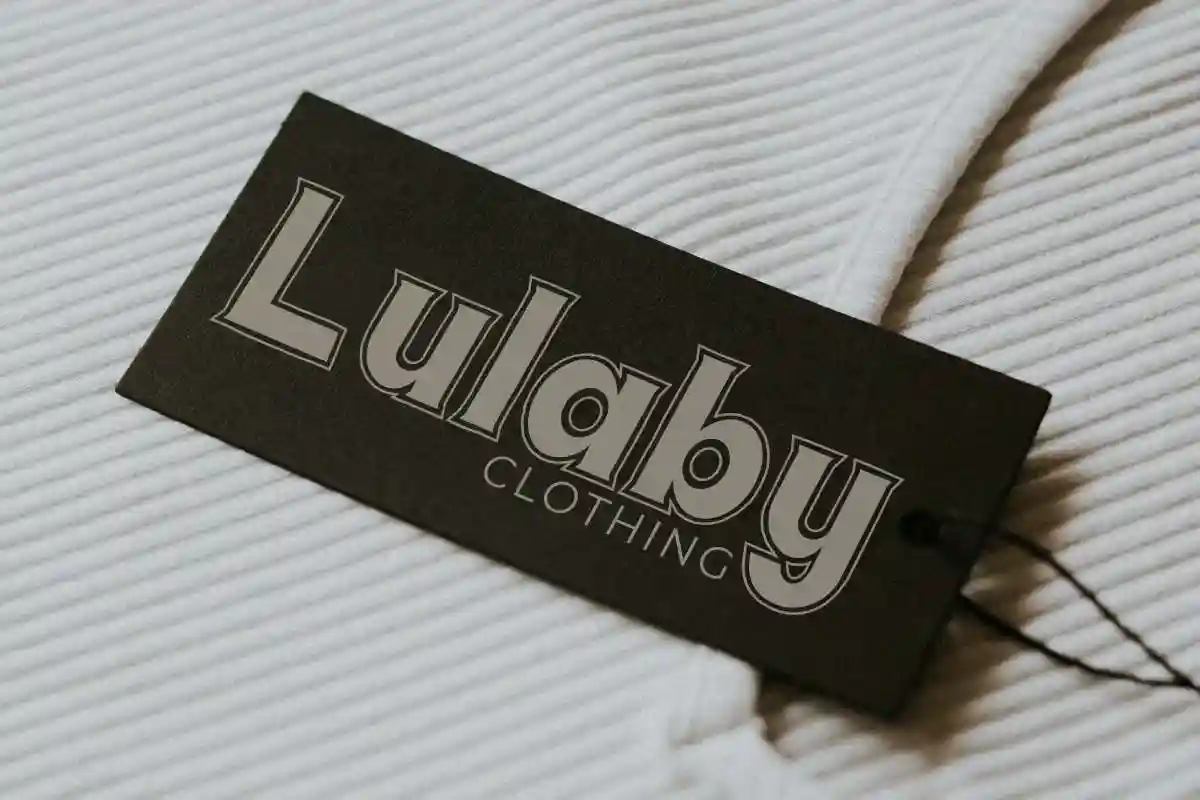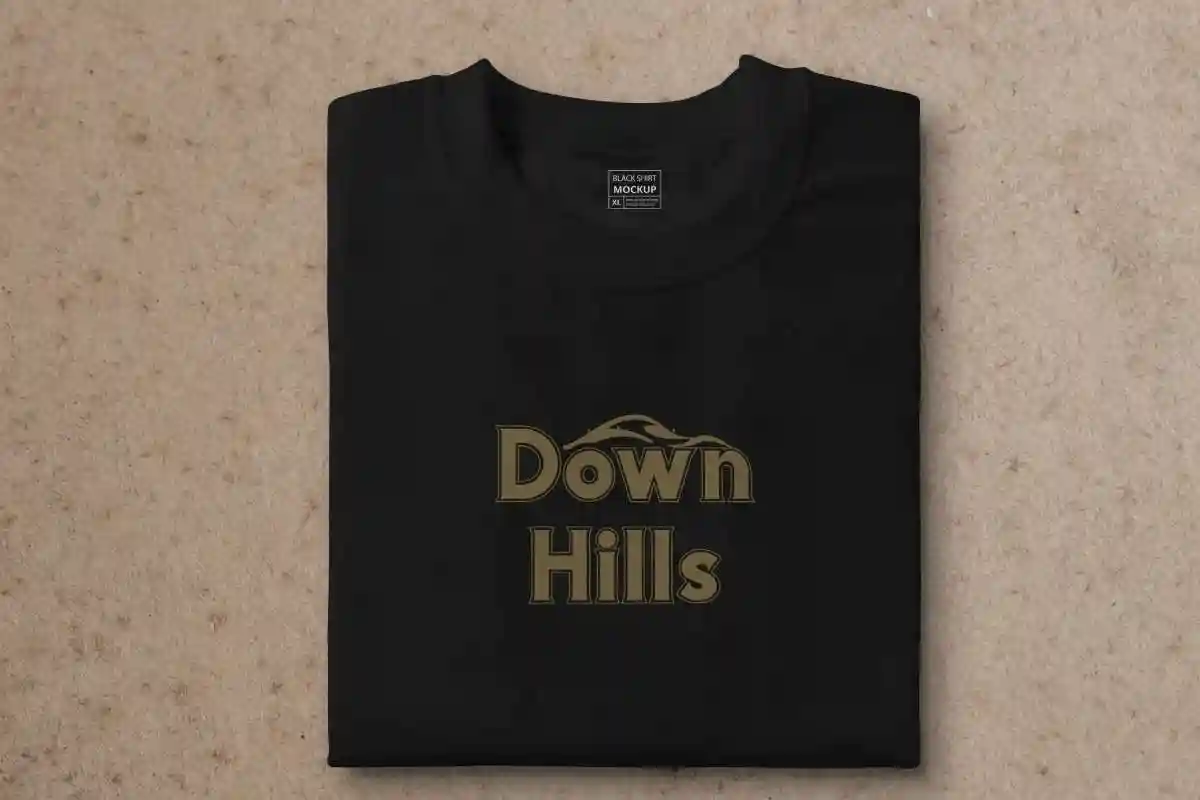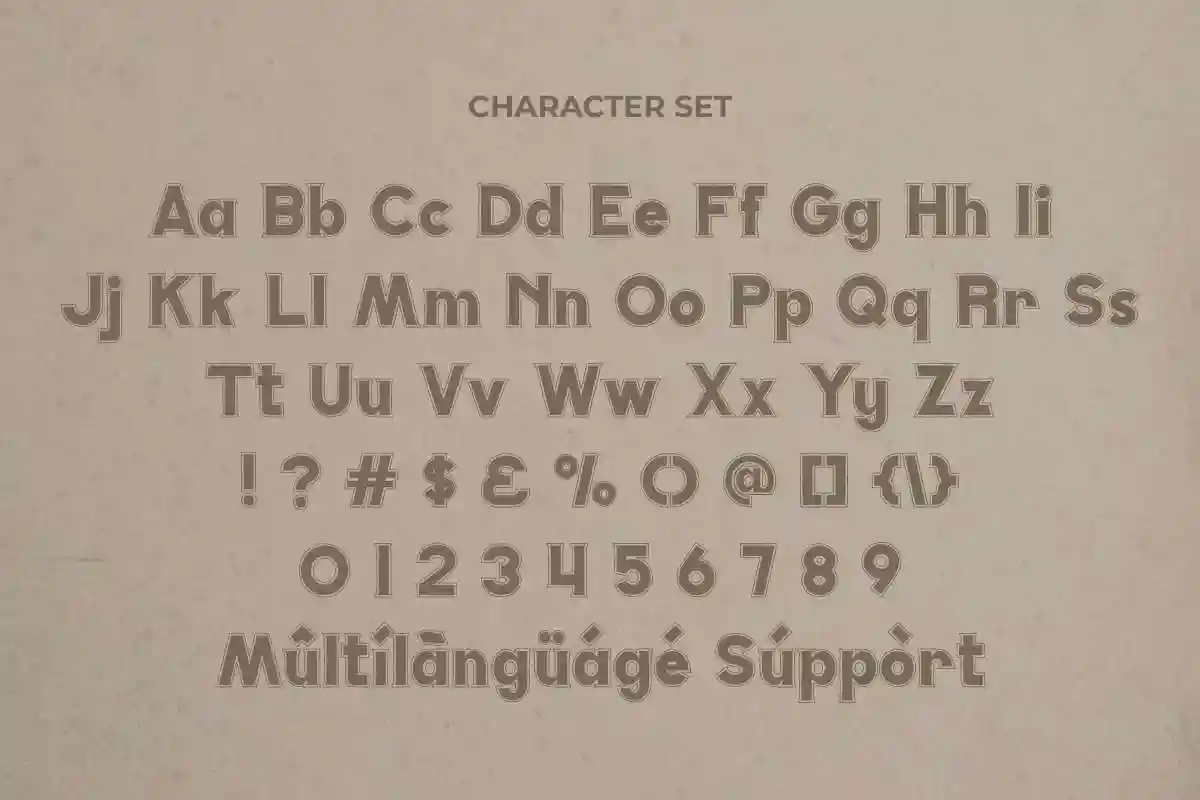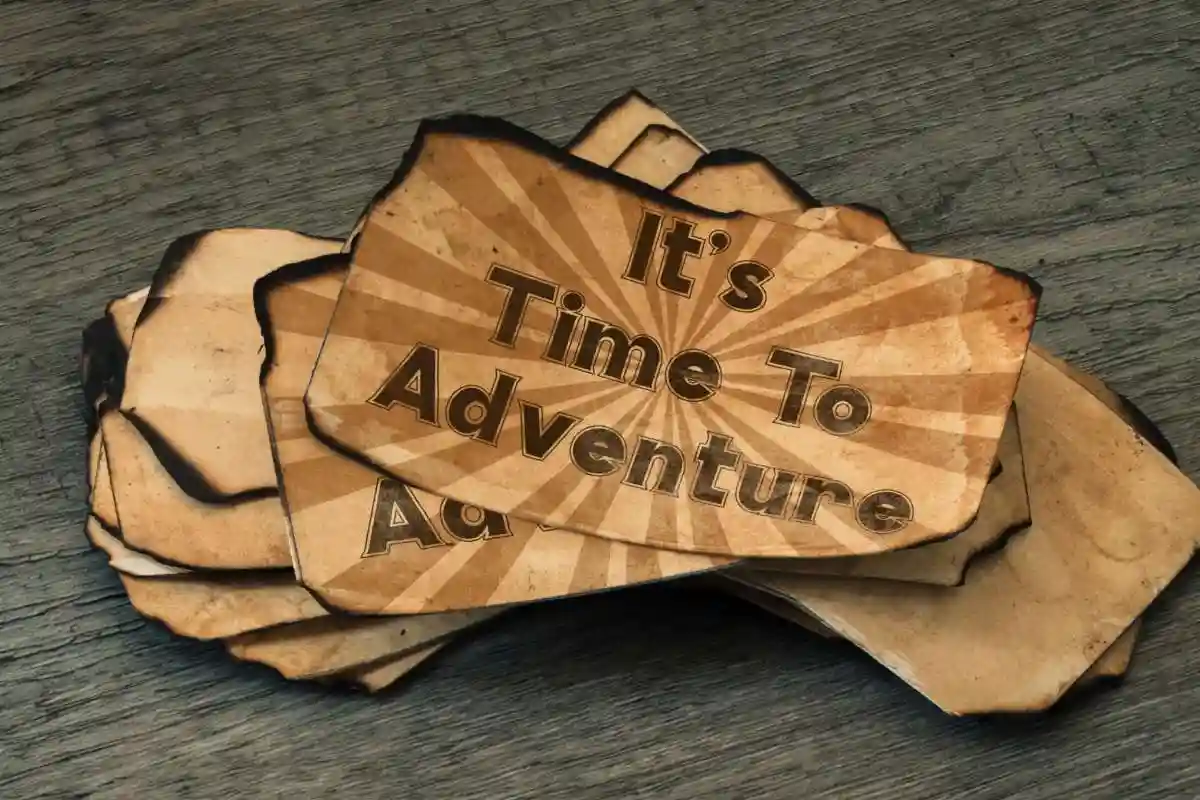
Stoppage is a sans serif font with vintage, elegant and energic style on its letters. This basic font has unique yet stylish letters exclusively made by NoahType Studio. The font will be amazing for any industries : finance, modern company, startup, cafe, events, clothing, festival, fashion brands and many more. Stoppage Font includes full set of Uppercase and Lowercase Basic Characters, Numerals and Punctuation. This font would be great to use any project that requires a cute look!
Looking for a clean, bold, and professional typeface that instantly grabs attention? Stoppage Sans Serif Font is your perfect design solution. Crafted with precision and style, this font is a modern sans serif typeface designed to make your branding, headlines, and creative projects stand out.
Stoppage features strong geometric shapes, sharp lines, and balanced proportions that bring clarity and confidence to any layout. Whether you’re working on logos, posters, web designs, packaging, or advertising campaigns, this versatile font will deliver an impactful visual presence.
With uppercase and lowercase letters, numerals, punctuation, and multilingual support, Stoppage Font ensures flexibility across various platforms and industries. Its minimalist yet commanding aesthetic makes it suitable for tech startups, fashion brands, editorial designs, or even futuristic interfaces.
What sets Stoppage apart is its unique character – modern, stylish, and unapologetically bold. It’s not just a font; it’s a branding tool that elevates your visual identity and sets you apart in a crowded market.